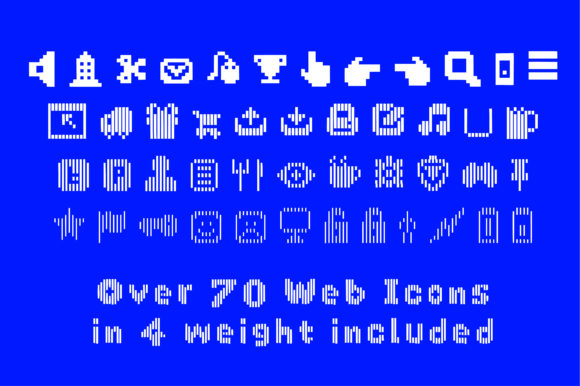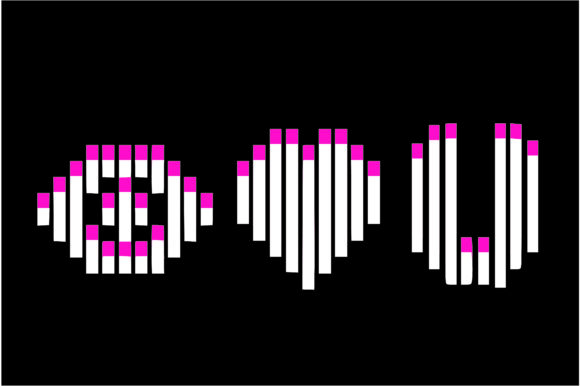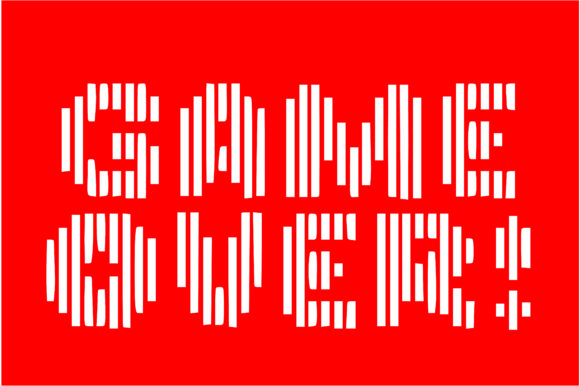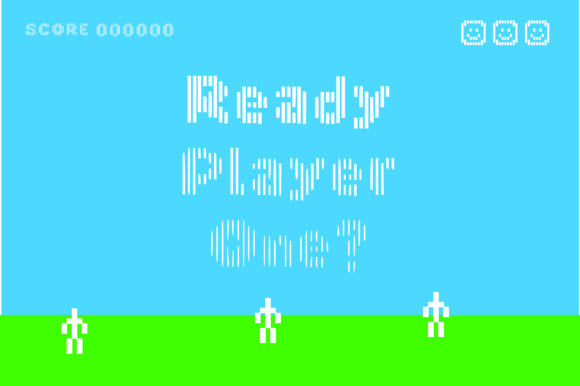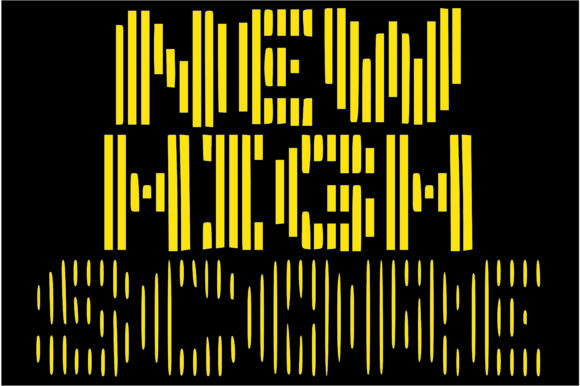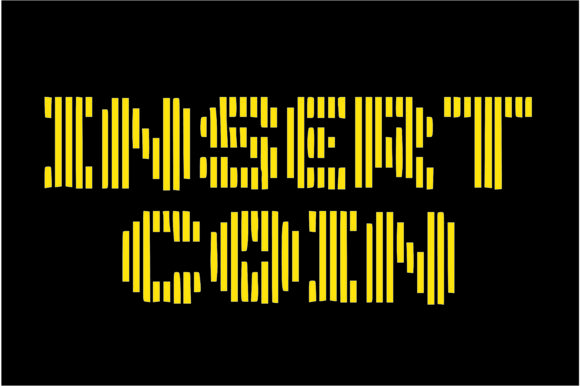
Step into a Galaxy of Design with Big Pixel Vertical Font
Who hasn’t had that moment when inspiration strikes at 3 am? Maybe it’s the flash of a creative idea, or the realization that you’ve been staring at the same design for hours. For designers, those moments are the ones we live for – the rush of adrenaline, the spark of innovation, and the satisfaction of bringing a concept to life. And that’s exactly what Big Pixel Vertical Font is all about: unleashing your creativity and pushing the boundaries of digital design.
This bold and eye-catching font is a love letter to all things sci-fi, with its authentic display style and futuristic vibe. Whether you’re working on a video game, a sci-fi novel, or a futuristic website, Big Pixel Vertical Font is the perfect companion to help you bring your vision to life. As a designer, you’ll appreciate its versatility, expressiveness, and the freedom it gives you to experiment and innovate.
Big Pixel Vertical Font Key Features
- Font Family: Big Pixel Vertical Font is a unique, high-contrast font designed for readability and visibility.
- Character Set: The font includes a wide range of characters, including uppercase and lowercase letters, numbers, punctuation, and special characters.
- Unique Characteristics: The Big Pixel Vertical Font features bold, vertical lines that provide excellent readability and visibility, making it ideal for use in low-light environments or for people with visual impairments.
Big Pixel Vertical Font Review
Big Pixel Vertical Font is a font that catches your eye with its unique design. I’d say it’s a great choice for headings or titles, especially if you want to add a touch of playfulness to your project. ✨ The font’s vertical strokes create a sense of movement, making it perfect for use in motion graphics or animations. ✨ The font is also highly customizable, allowing you to adjust the size, color, and spacing to fit your design needs.
However, there are some limitations to consider. ⚠️ The font may not be the best choice for body text, as it can be difficult to read in smaller sizes. ⚠️ Additionally, the font’s unique design may not be suitable for all types of projects, such as formal documents or technical manuals. ⚠️
Overall, I think Big Pixel Vertical Font is a great addition to any designer’s toolkit. It’s a fun and creative font that can add a lot of personality to your projects. Just be mindful of its limitations and use it sparingly to avoid overwhelming your audience.
- Unique design that adds a touch of playfulness to your project
- Perfect for headings, titles, and motion graphics
Big Pixel Vertical Font is ideal for use in headings, titles, and other large text elements. It’s also a great choice for creating a bold, eye-catching design. Some common use cases include:
- Creating a bold, modern heading for a website or blog post.
- Designing a logo or brand identity that incorporates the font.
- Adding a touch of personality to a presentation or report.